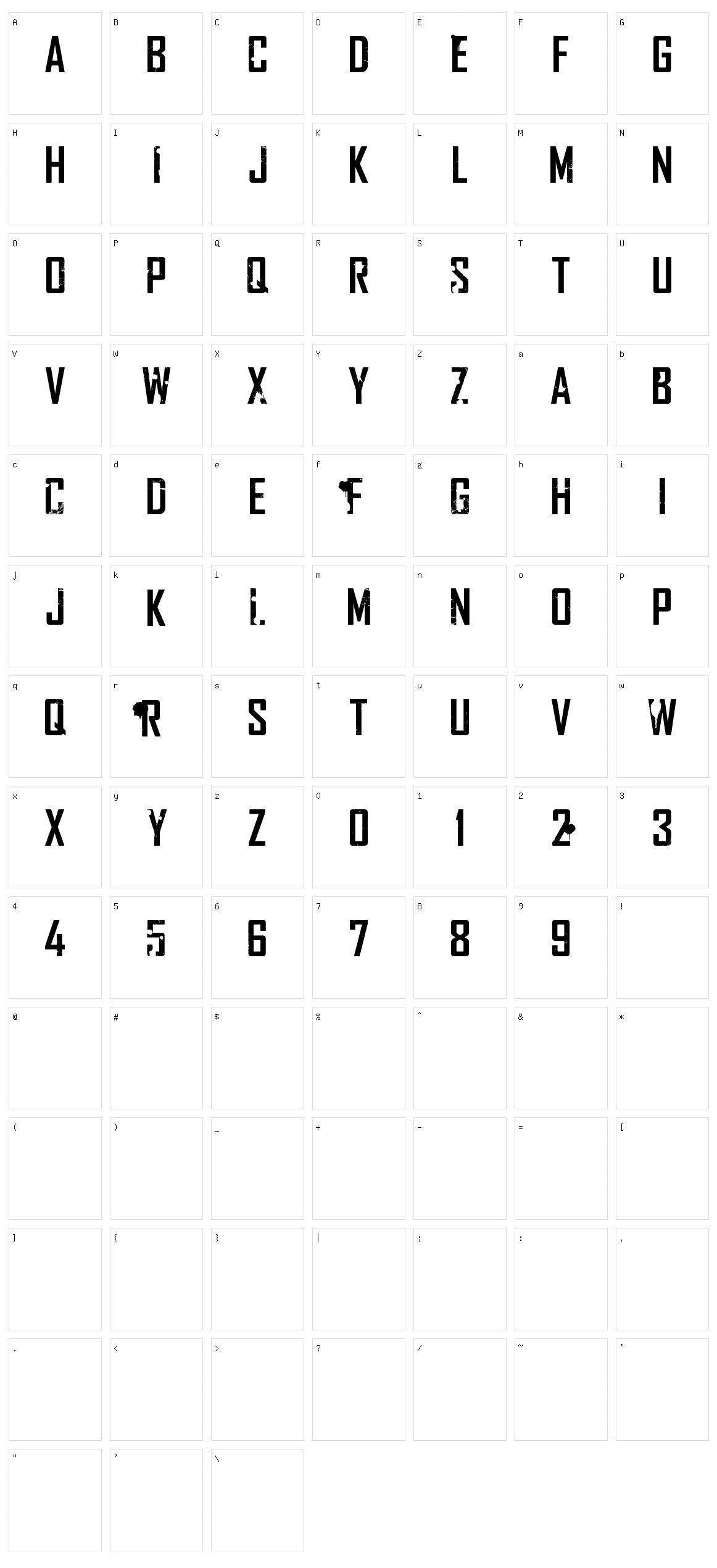
The free font Rocketship Town is carefully designed by Pi Luo Chiu, showcasing a thoughtful balance of creativity and usability and falls under the Eroded font style. When you download the ZIP file, it contains only 125.35 KB of font files, making it lightweight and quick to download. Please review the license details below to understand permitted usage and distribution rights. If license information is not available, we recommend using this font for personal projects only or contacting the author directly for commercial usage permissions.